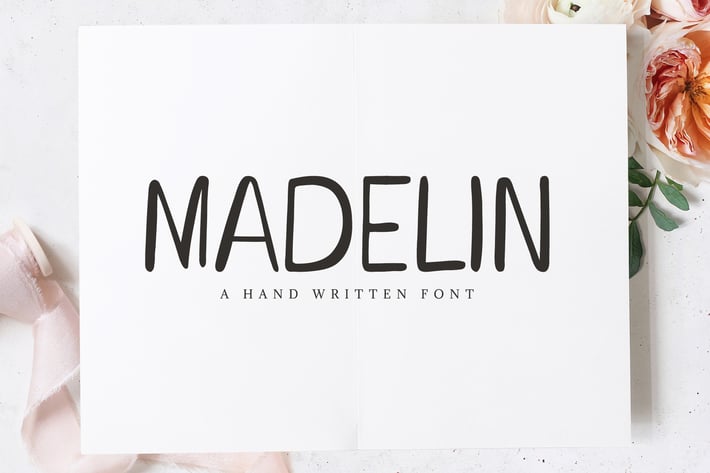
Madelin Handwritten Font
Madelin is a trendy and cute handmade font which will look like a real piece of art on a variety of design ideas. It contains uppercase, lowercase, number, punctuation, symbols and support multilingual. Madelin will be perfect for packaging, presentations, logo, headlines, lettering, posters, branding, quotes, titles, magazines headings, web layouts, advertising, invitations, packaging design, books, and nearly any creative design.
Madelin Font Features:
- Uppercase Letters
- Lowercase Letters
- Support Multilingual ( Latin Supplement + Latin Extended A)